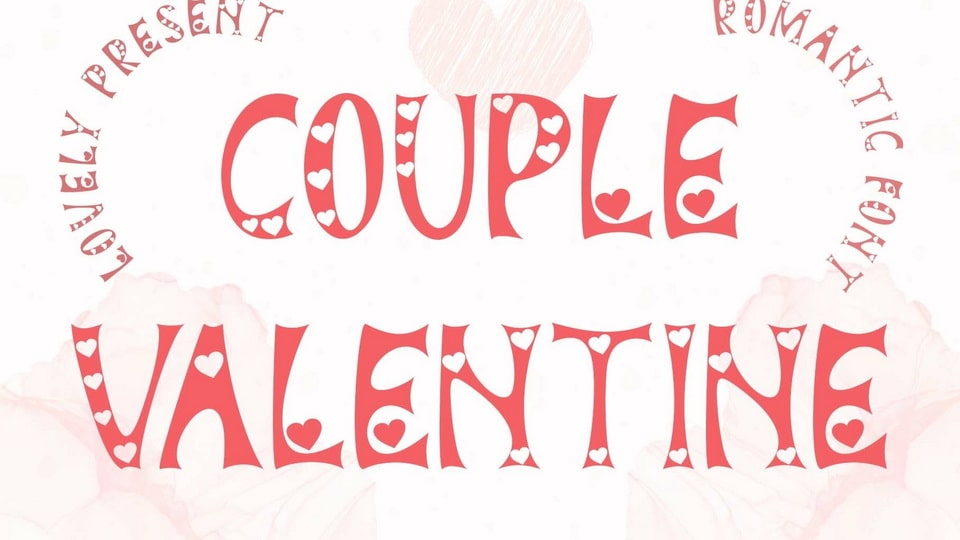
Download Couple Valentine font, a very unique and beautiful display typeface. This font has a heart shape on each letter. It is suitable for romantic moments, Valentine’s Day, weddings, and more.
Designer: Selvia Design